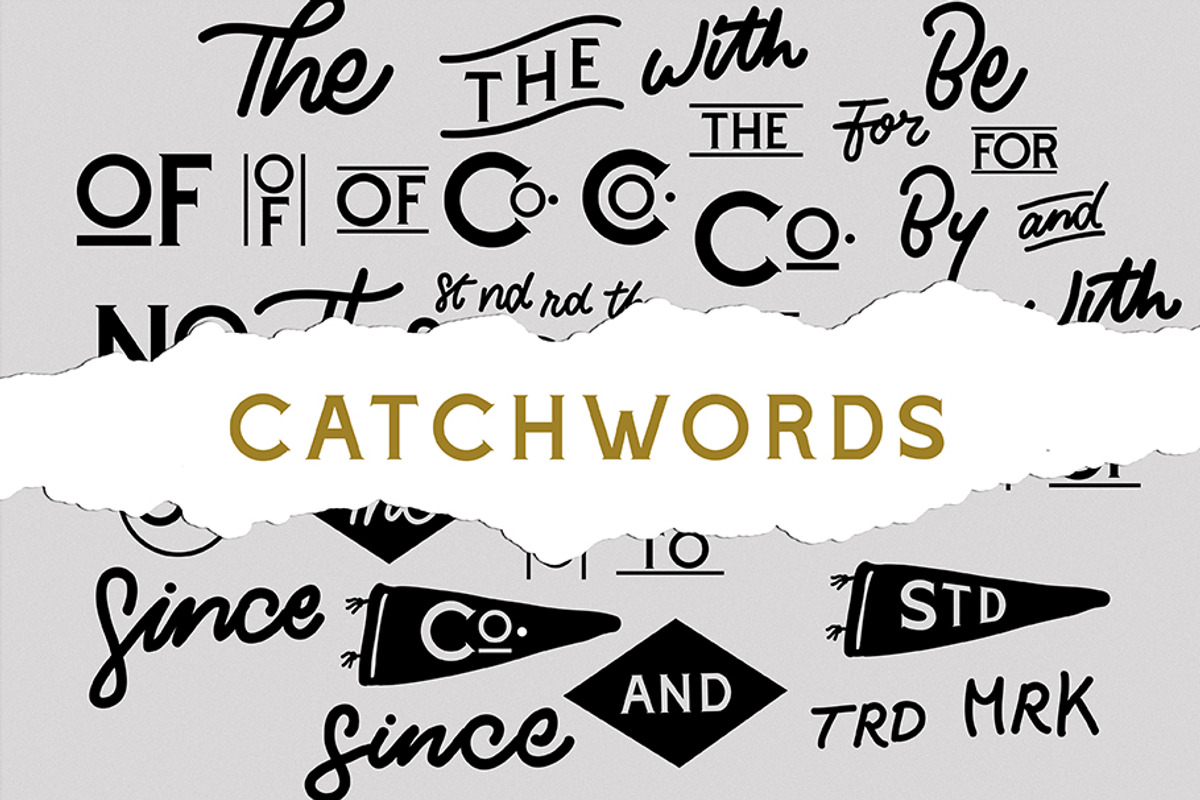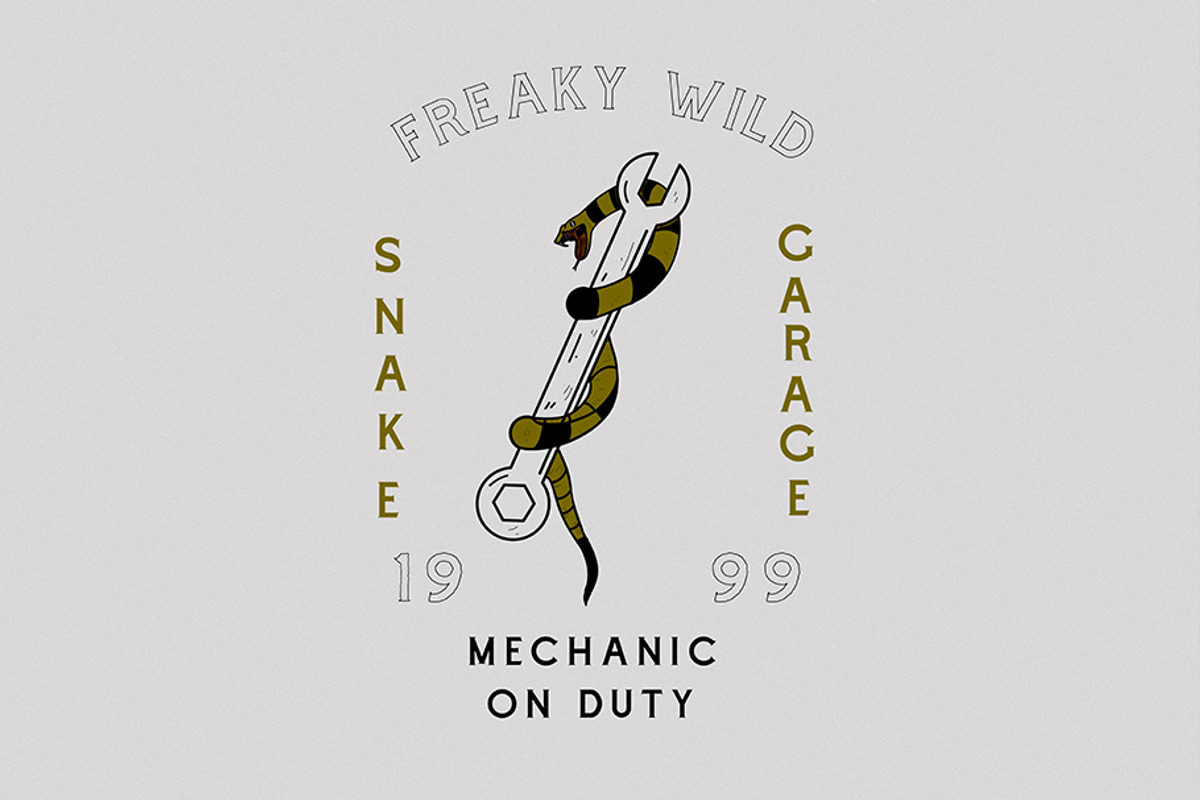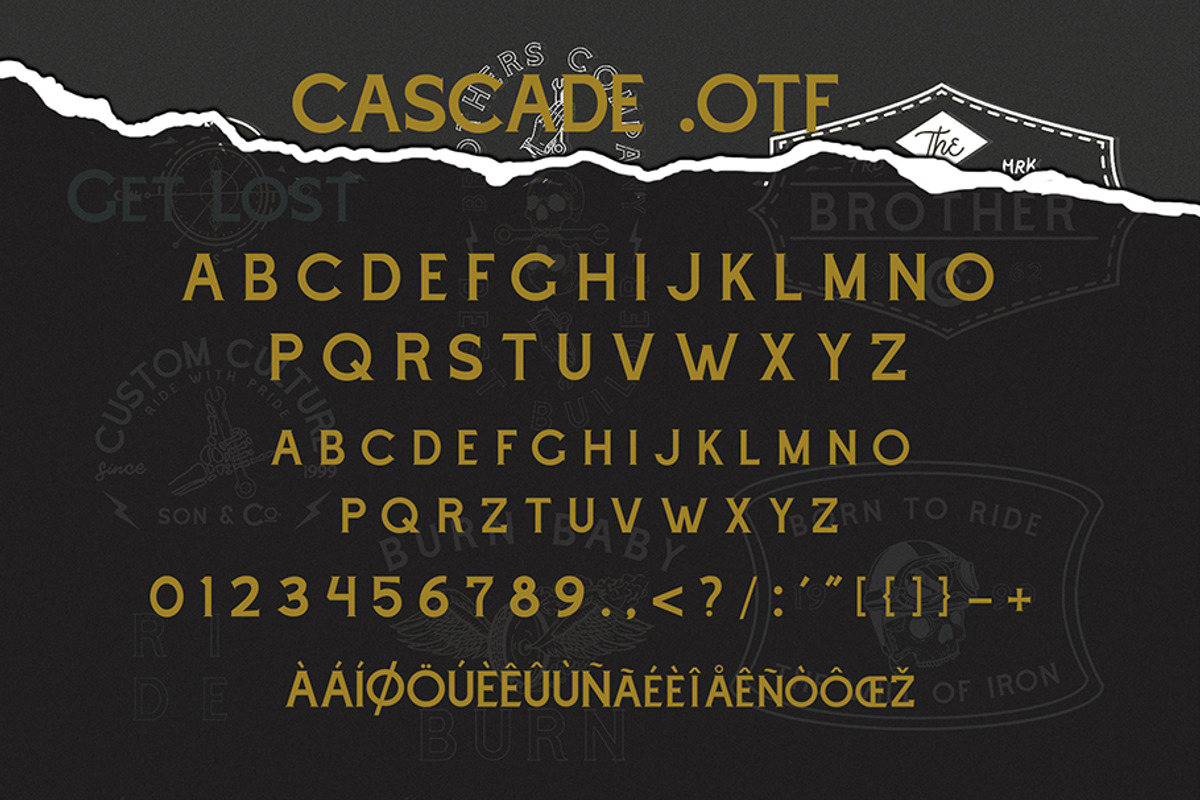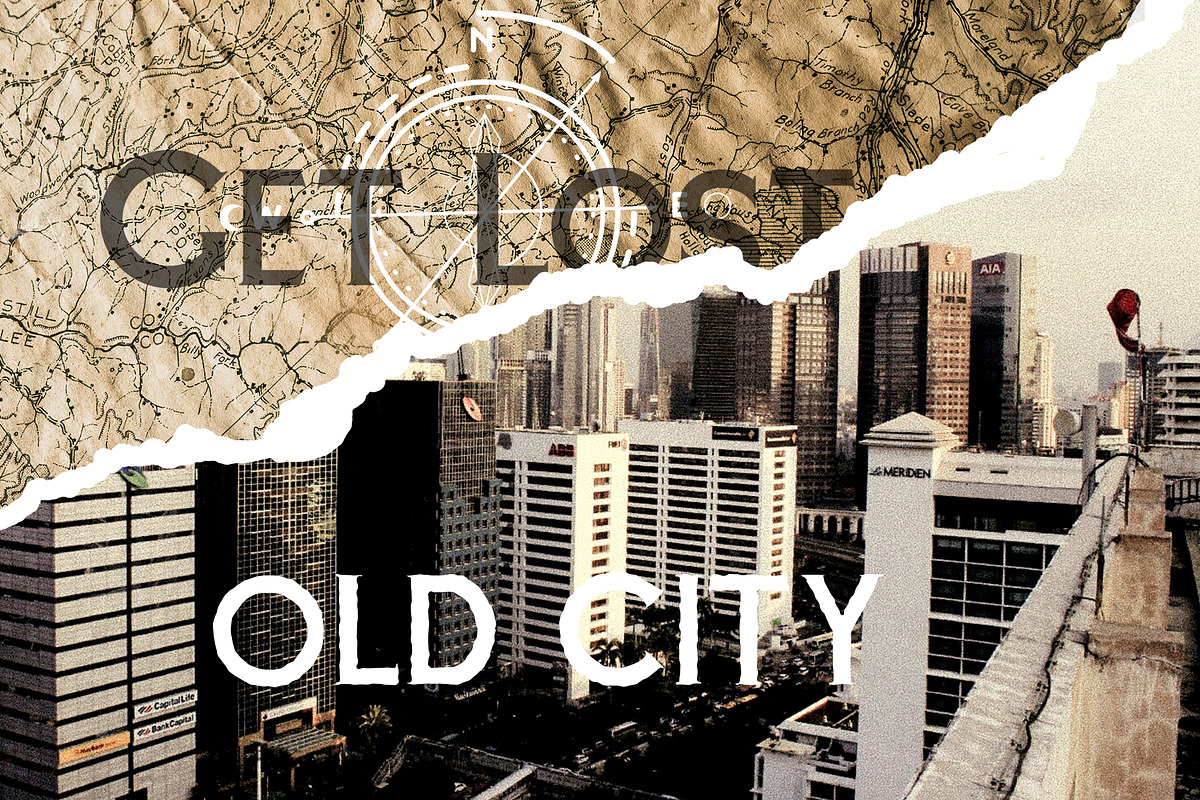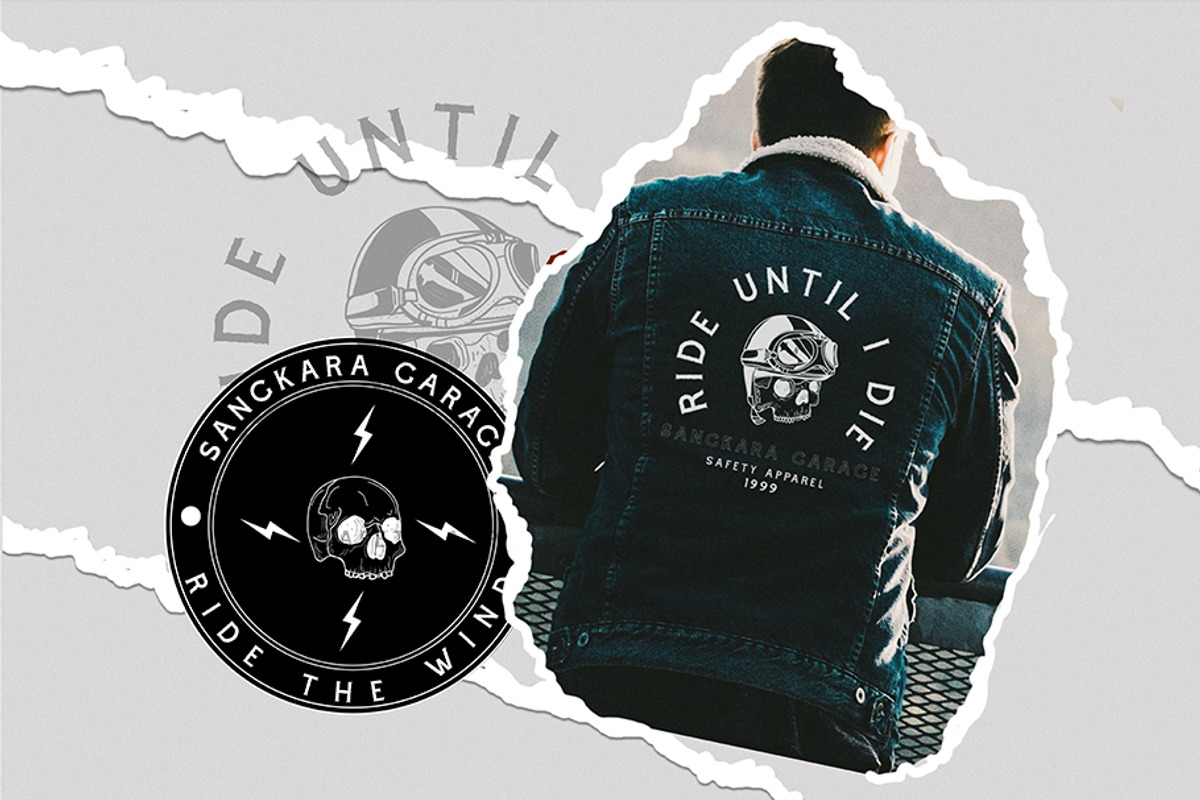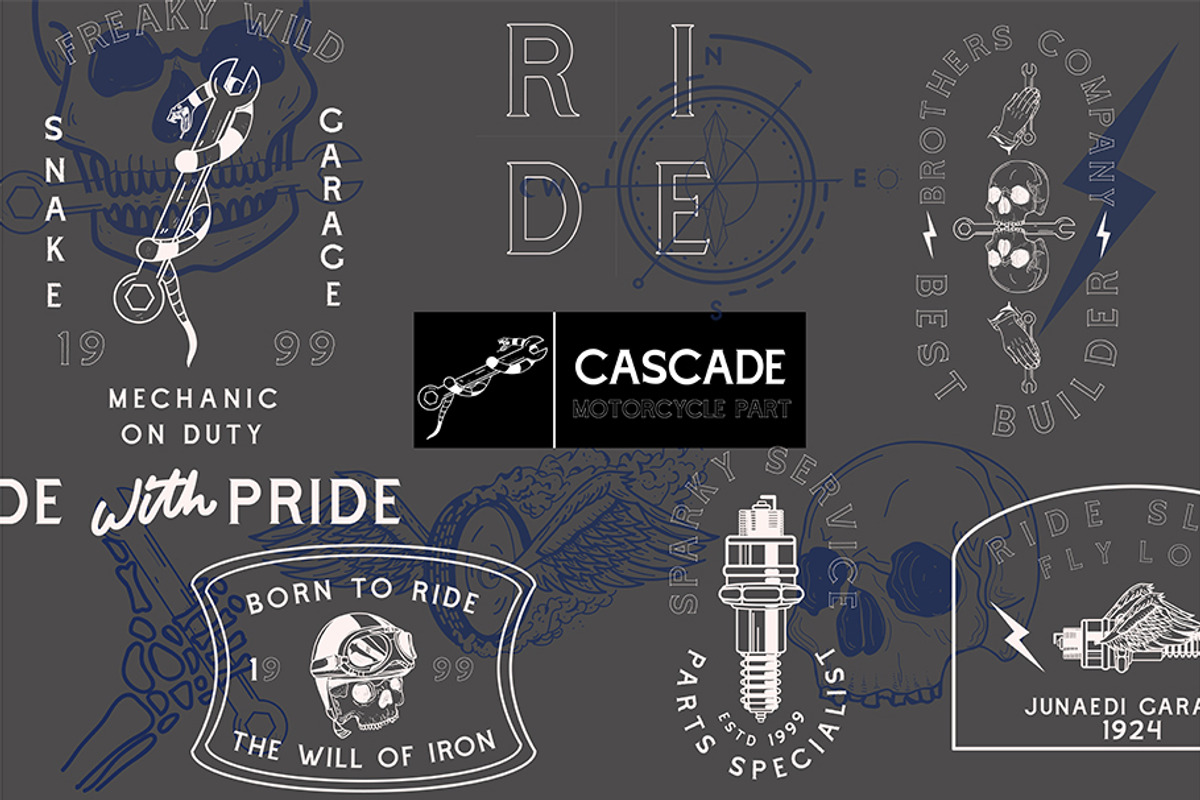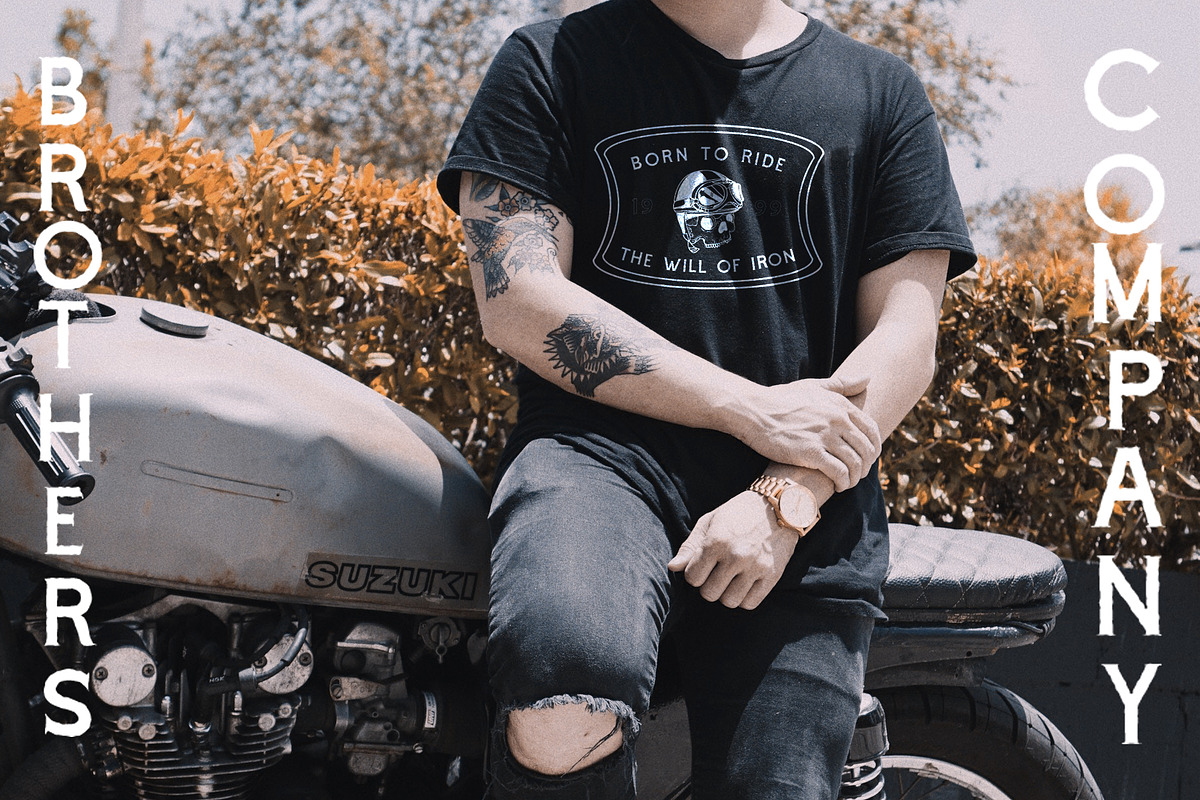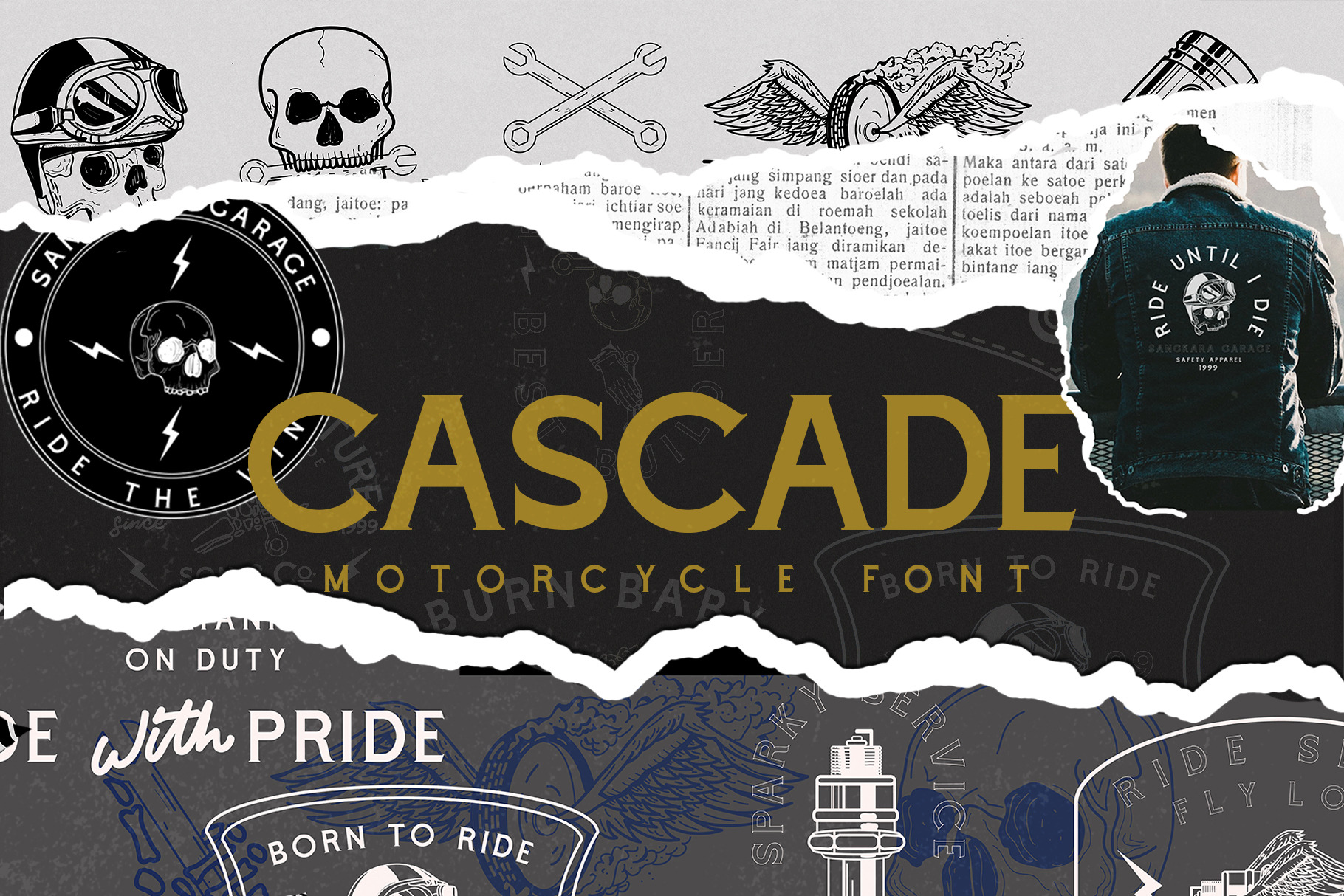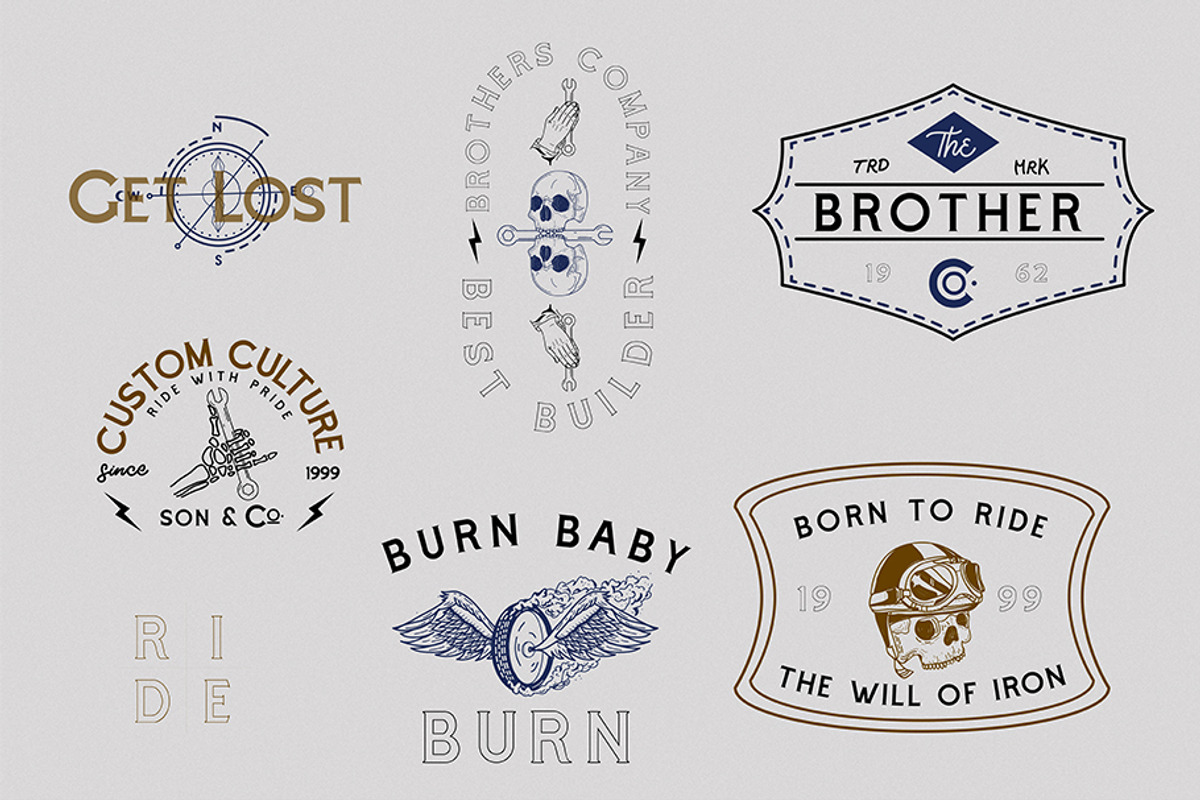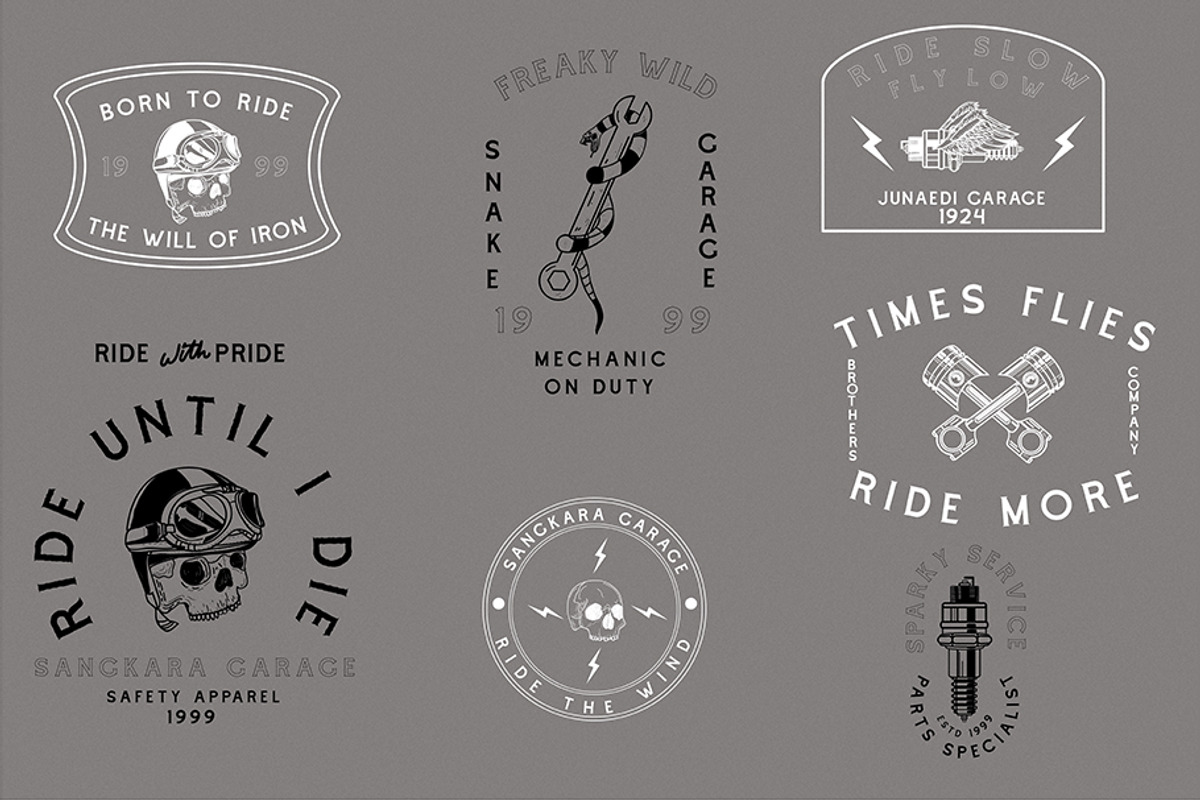
Cascade Motorcycle font
Calling all motorcycle entushiast
From the love of our heart about motorcycle, we decided to created this font with full joy and make it comes to the real world now let us introduce our new font called " CASCADE "
Cascade is an allcaps bold serif font inspired by vintage biker style, cascade comes with for style
- Clean
- Rough
- Outline
- Outline rough
also comes with standard multingual language, catchwords and illustration, this font can be used as a logo, badge, t-shirt design, poster, etc let your imagination be the wall who can stop it. Illustration pack made perfectly paired with typeface we made.